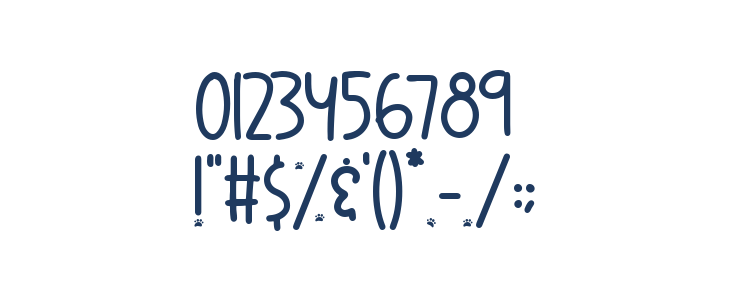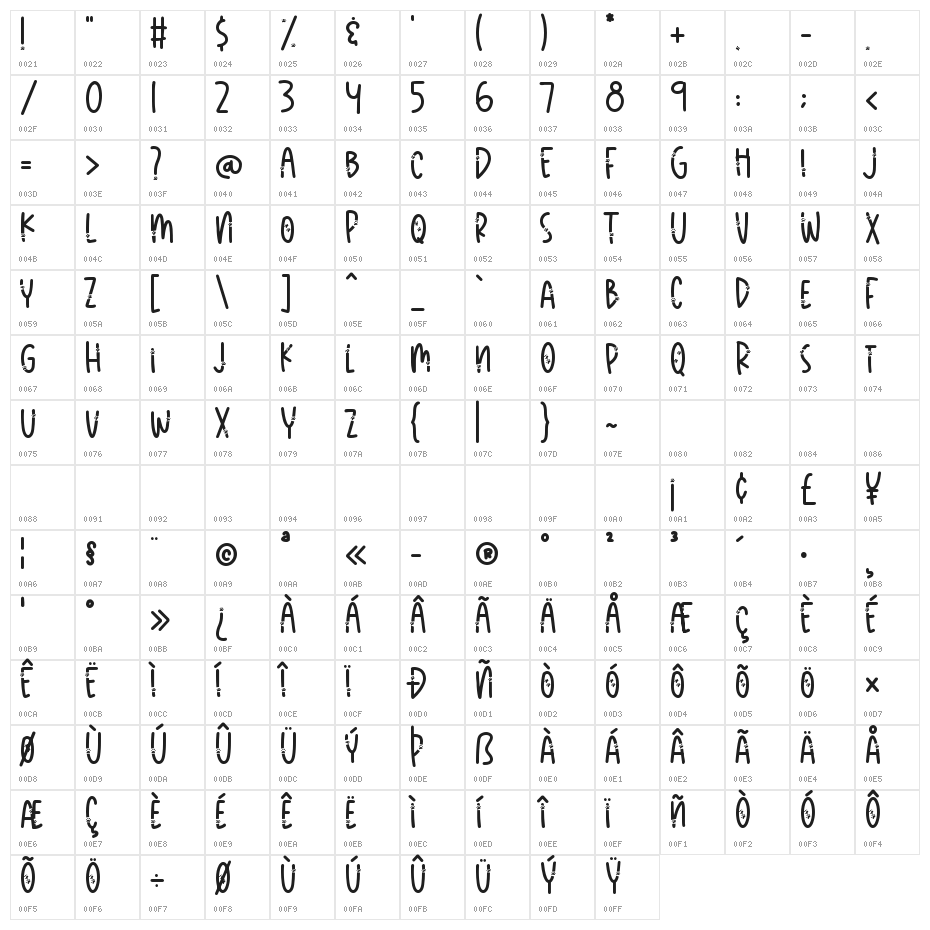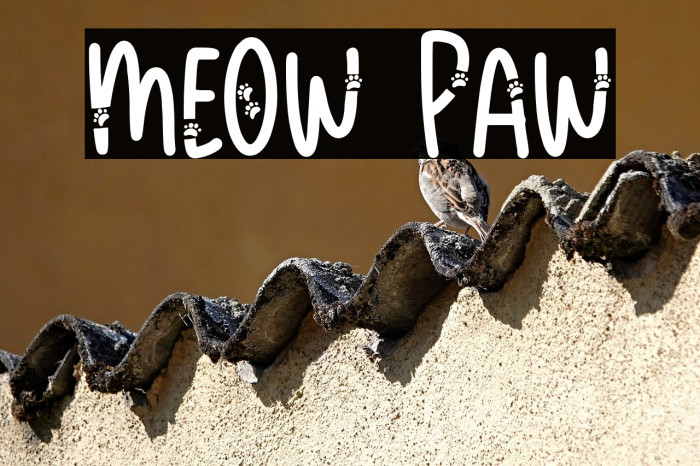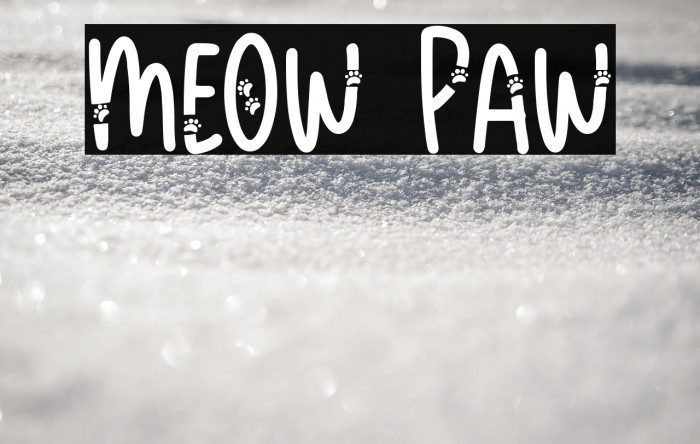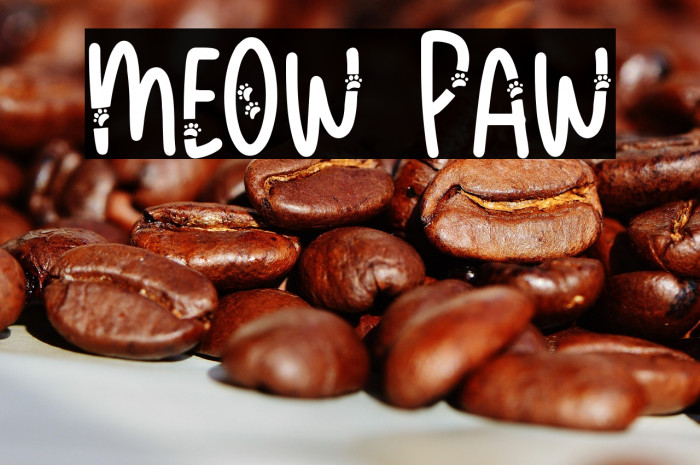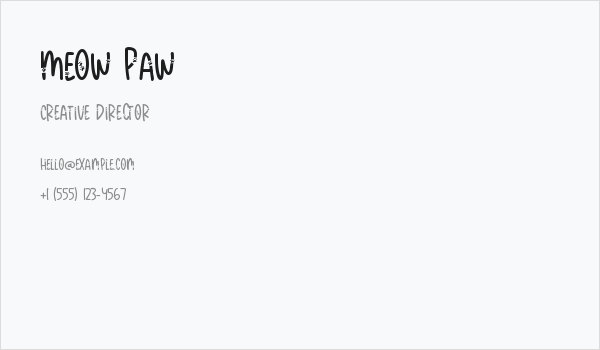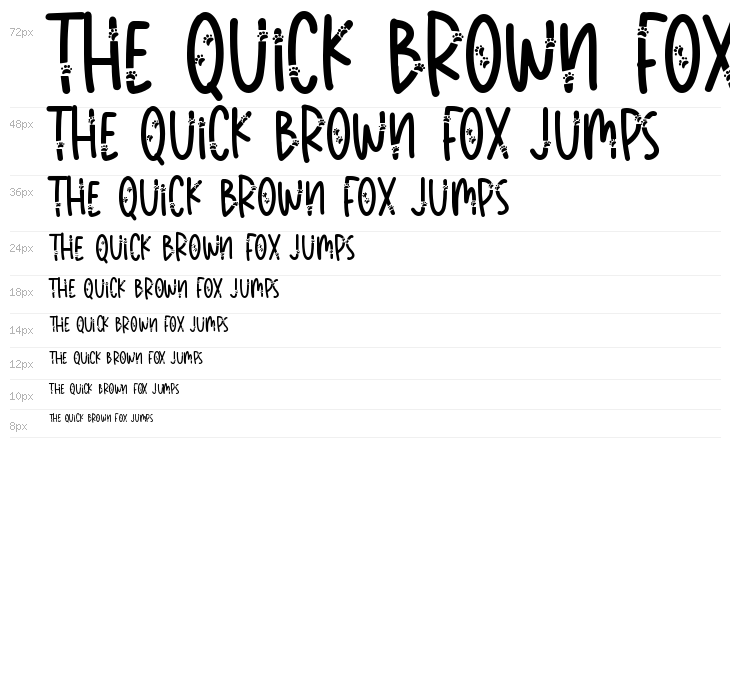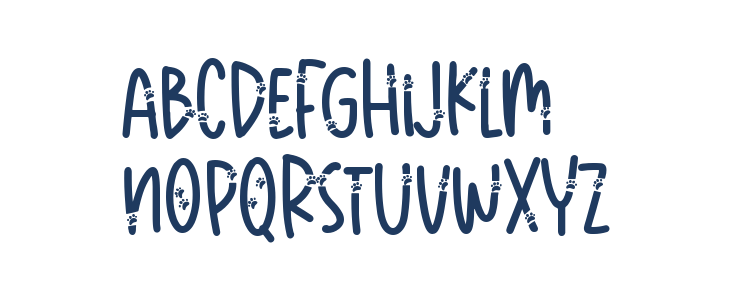
Meow Paw Font
Meow Paw Description
This playful and whimsical font features a unique design with paw prints integrated into the strokes of each character, giving it a fun and friendly appearance. The letters are bold and rounded, with a slightly irregular baseline that adds to its casual charm. The font maintains a consistent weight throughout, ensuring readability while still being visually engaging. It includes both uppercase and lowercase letters, numbers, and a variety of special characters, making it versatile for different uses. The overall style is decorative, perfect for projects that require a touch of personality and creativity.
| Overall Style | Playful, Whimsical, Decorative |
| Proposed Projects | Ideal for children's books, pet-related branding, playful invitations, and creative posters. |